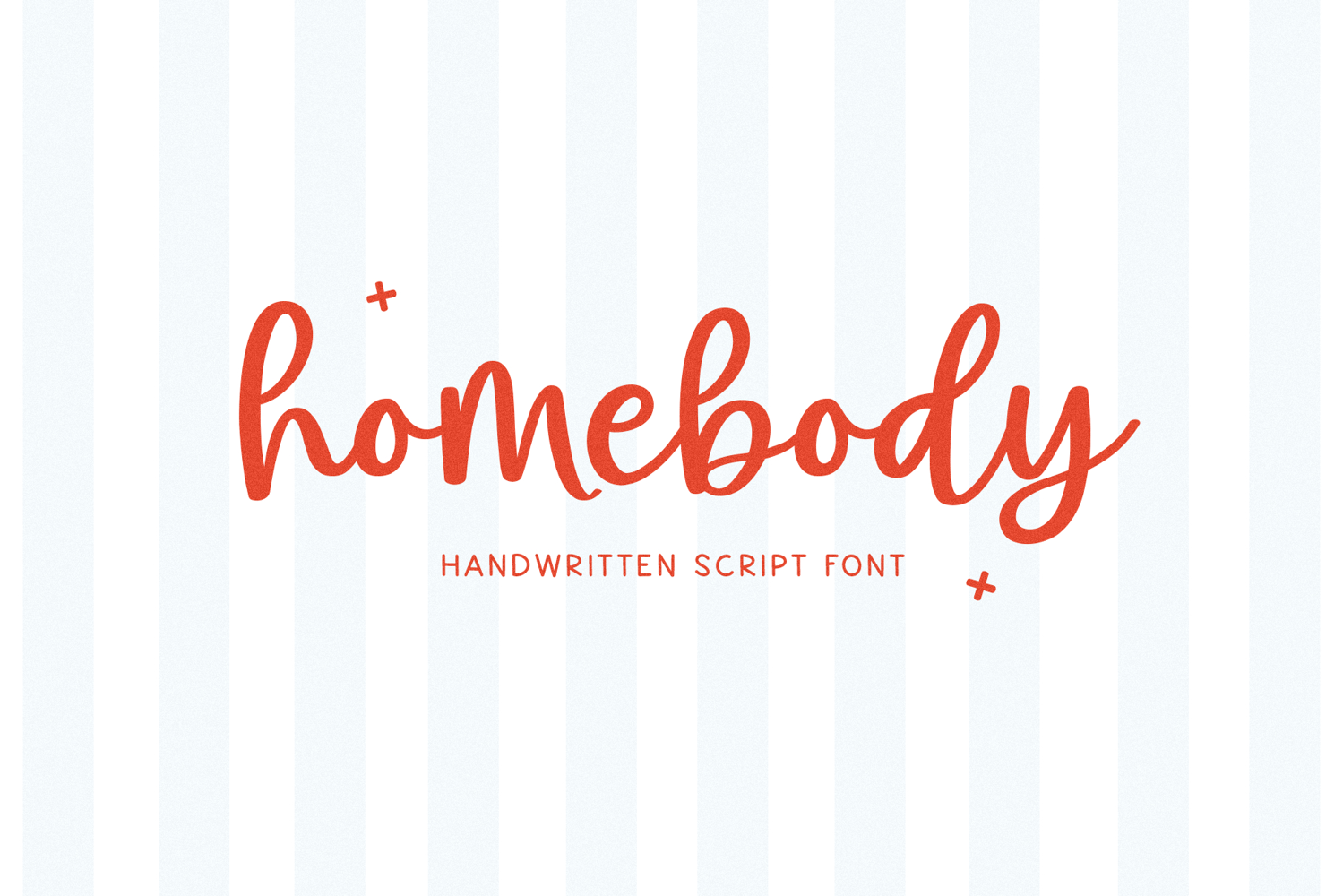
Homebody - Handwritten Script Font
Homebody
Homebody is a cute handwritten script font.
This font is perfect for cricut projects, canva, logos, shirts, svg files, teachers, painted banners and more!